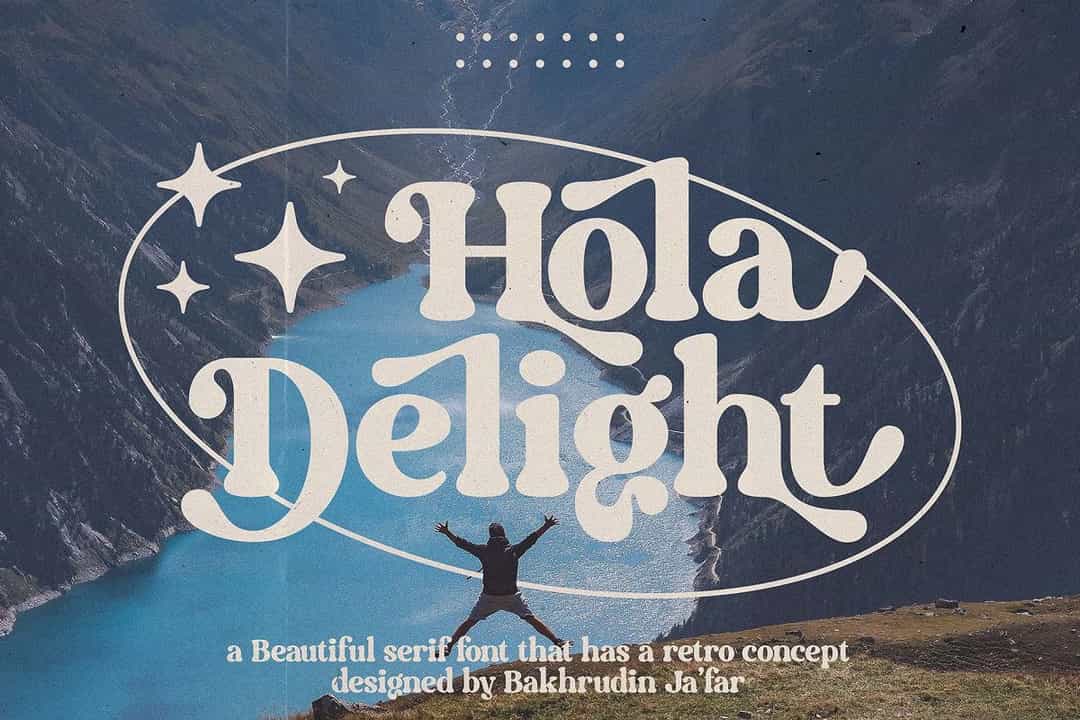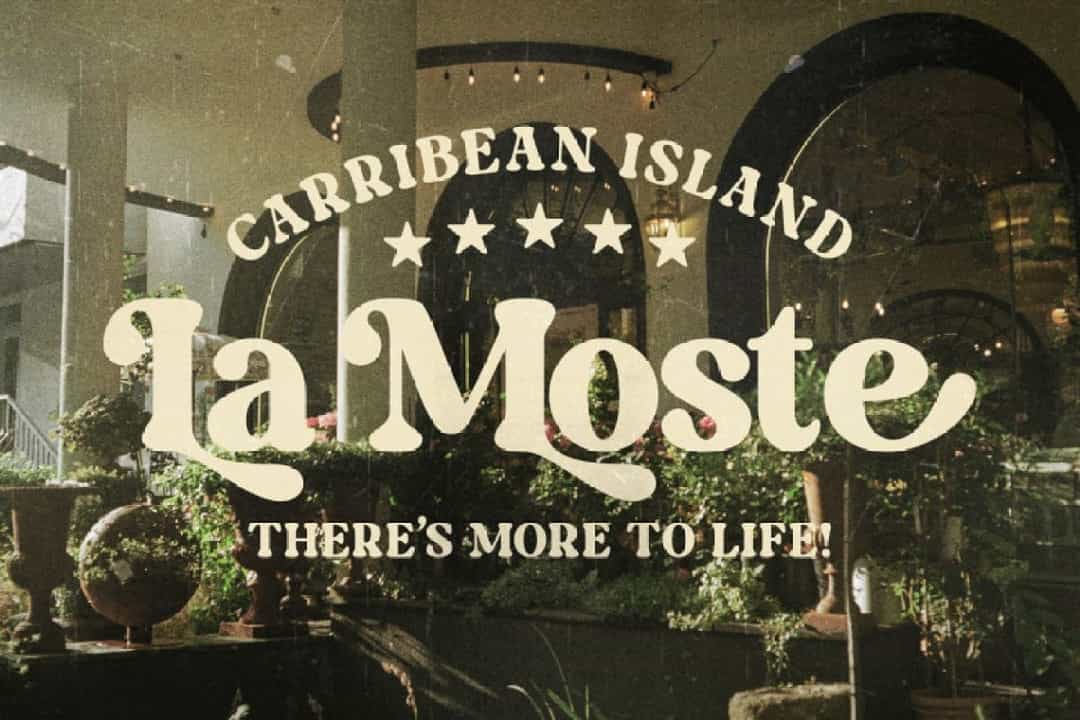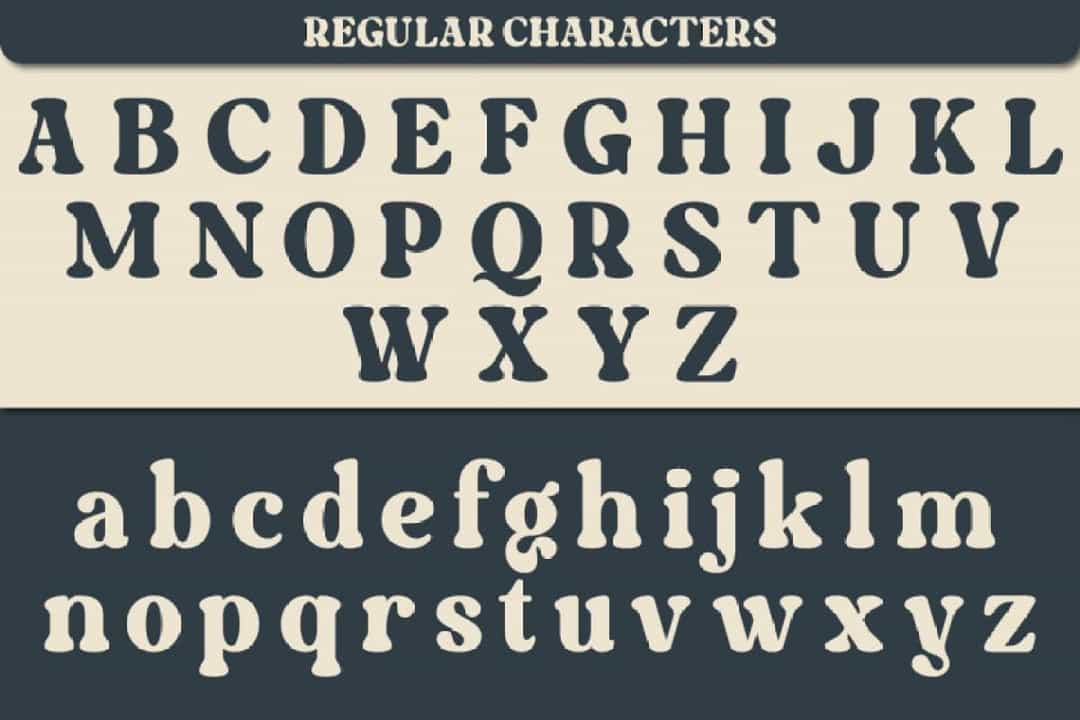
Hola Delight is a beautiful vintage serif typeface, created in harmony with a variety of design options. PUA encoded, it allows easy access to characters and symbols.